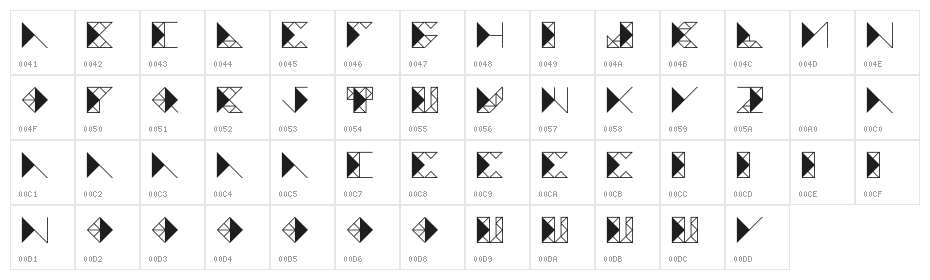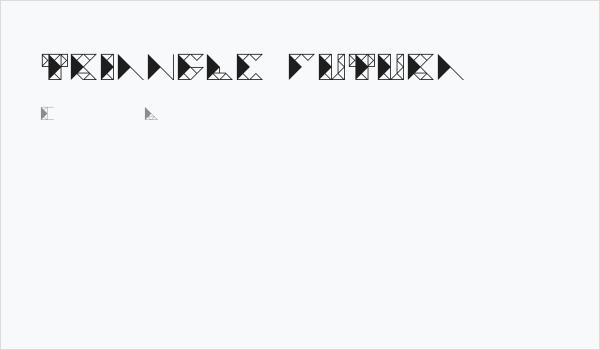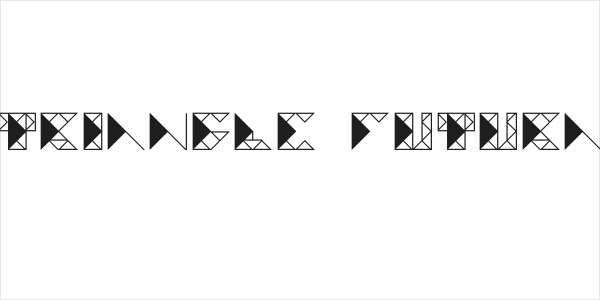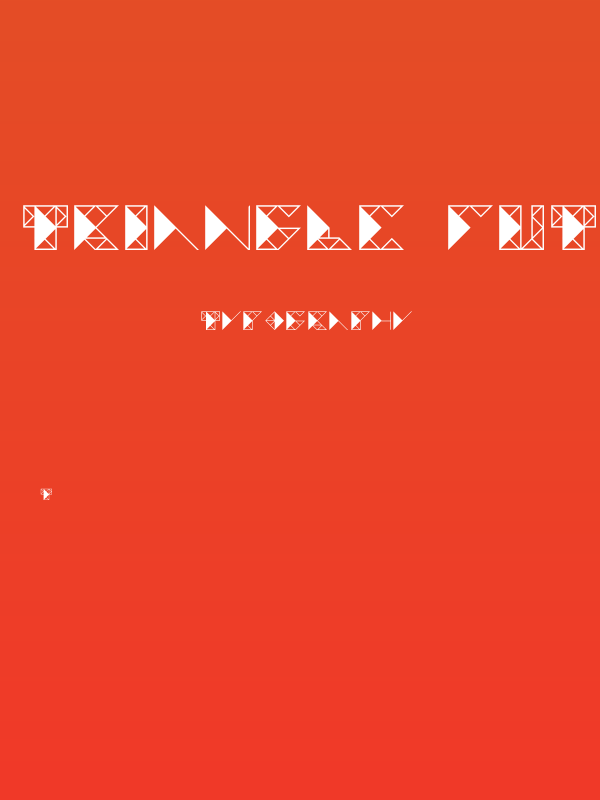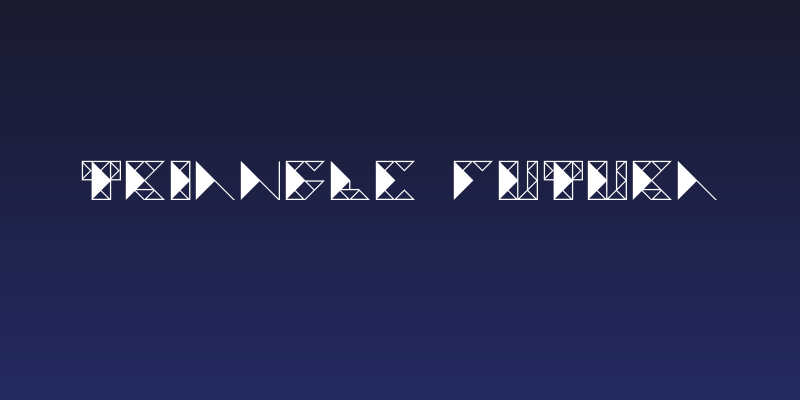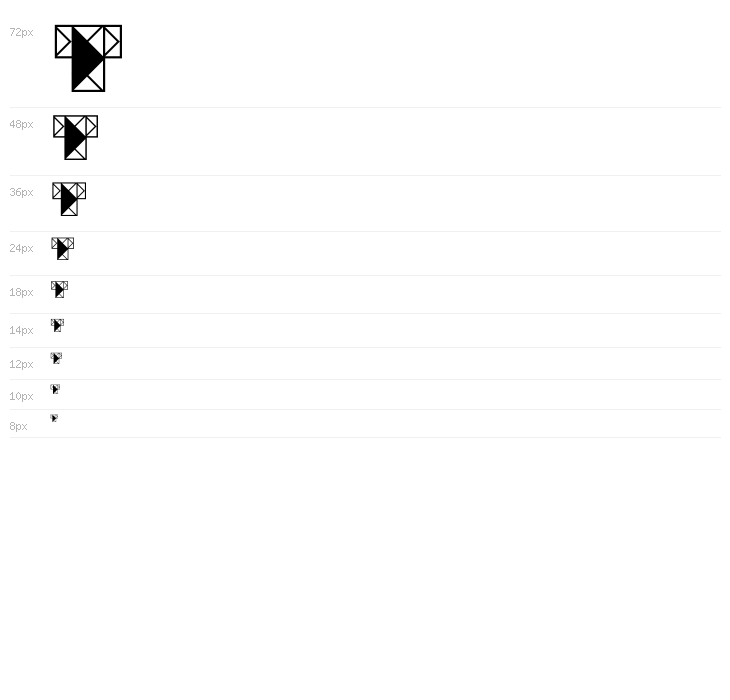
TRIANGLE FUTURA Font
TRIANGLE FUTURA Description
This font features a unique geometric design, where each character is constructed using triangular shapes. The bold, angular lines create a striking visual impact, making it ideal for modern and futuristic themes. The uppercase letters are particularly distinctive, with each character formed by a combination of filled and outlined triangles. The overall appearance is both artistic and structured, offering a fresh take on traditional letterforms. The font's design is consistent across all characters, ensuring a cohesive look in any text application.
| Proposed Projects | Ideal for branding, posters, and digital artwork where a modern and edgy aesthetic is desired. |